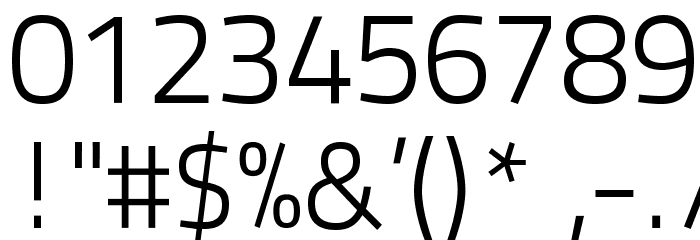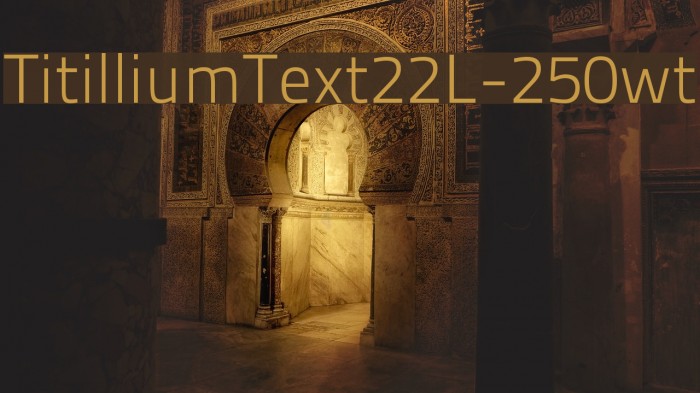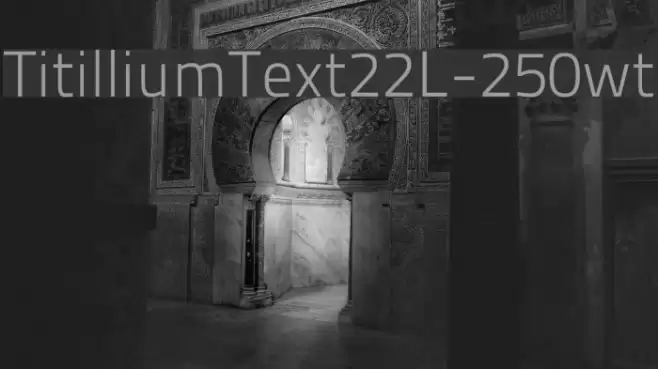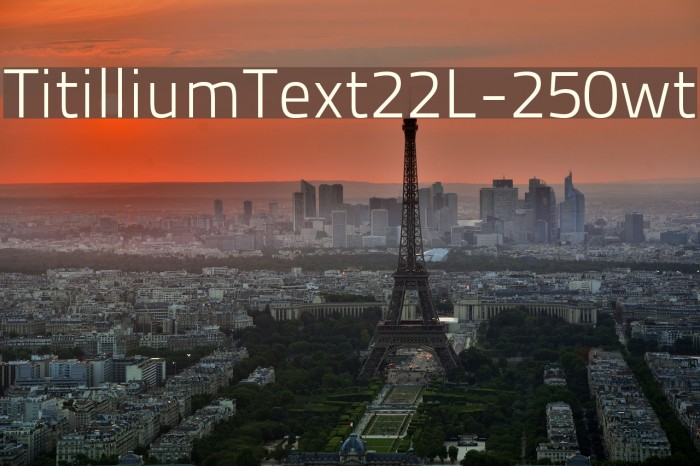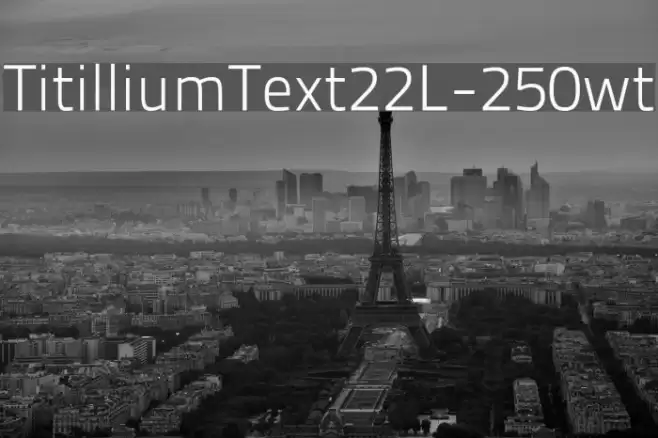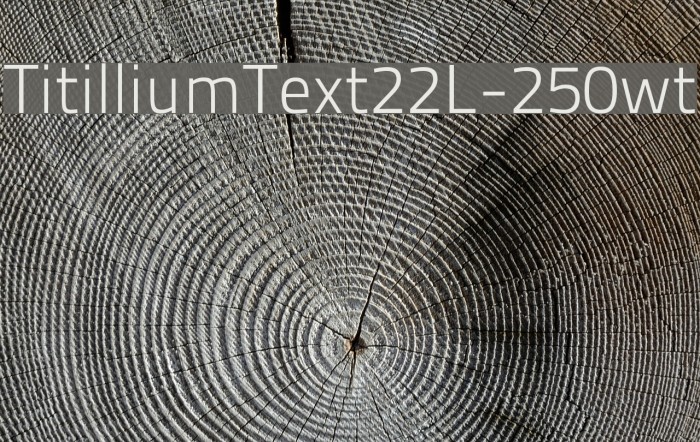
TitilliumText22L-250wt Font
TitilliumText22L-250wt Description
This font features a clean and modern sans-serif design with a geometric structure. The characters are well-balanced, offering a harmonious appearance that is both professional and approachable. The uppercase letters are slightly taller than average, providing a sense of authority, while the lowercase letters maintain a consistent height that enhances readability. The numerals are clear and distinct, making them suitable for both digital and print formats. Special characters are designed with precision, ensuring they integrate seamlessly with the rest of the typeface.
| Use Case | Headlines, Body text, Logos |
| Proposed Projects | Ideal for corporate branding, user interfaces, digital content, and editorial design. |